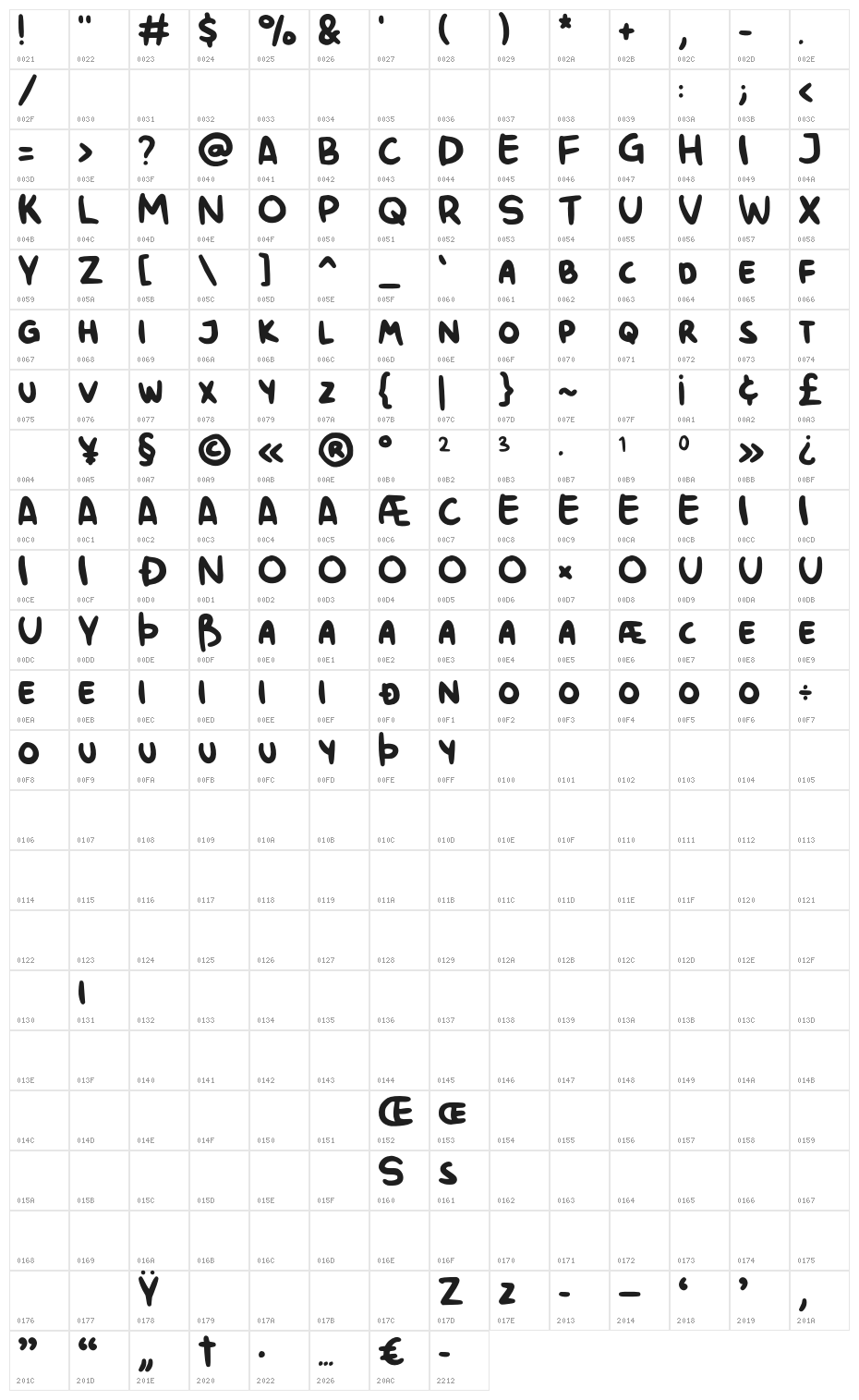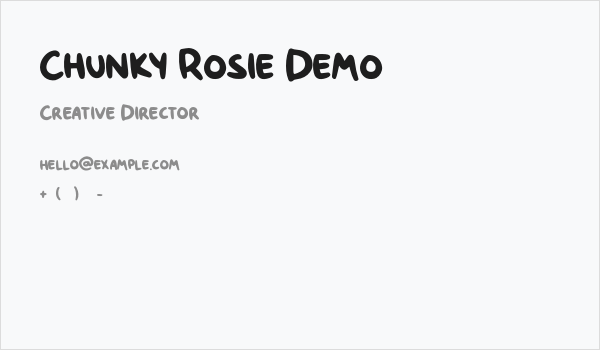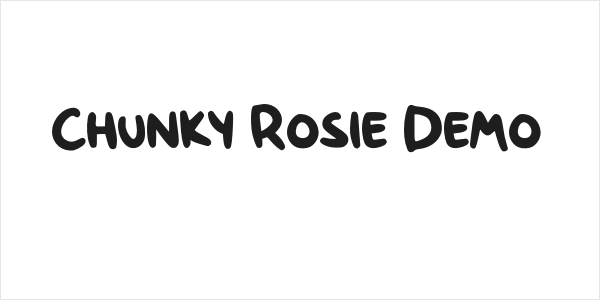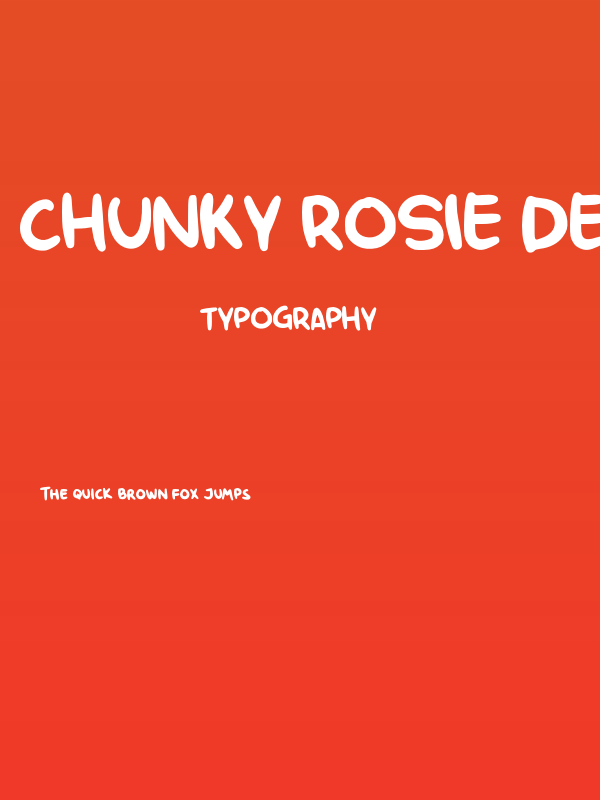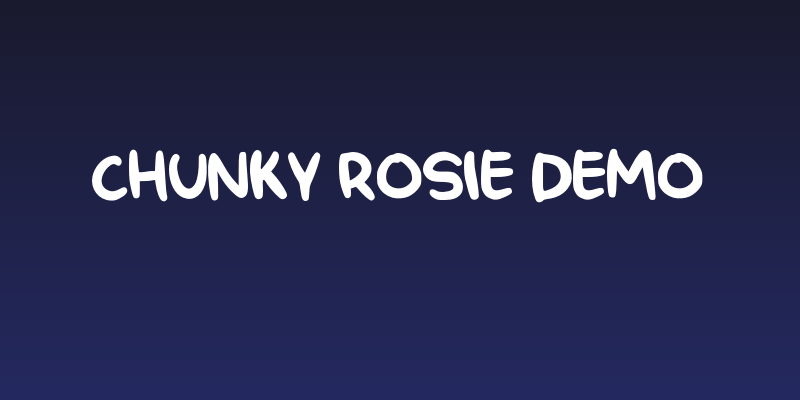
Chunky Rosie Demo Font
Chunky Rosie Demo Description
This font features a bold, playful style with rounded edges and a hand-drawn appearance. The characters are thick and slightly irregular, giving it a casual and friendly feel. The uppercase and lowercase letters maintain a consistent weight, contributing to its cohesive look. The numbers and special characters follow the same design principles, ensuring uniformity across all glyphs. Its chunky and informal style makes it ideal for projects that require a fun and approachable aesthetic.
| Proposed Projects | Great for children's books, playful branding, posters, and social media graphics. |